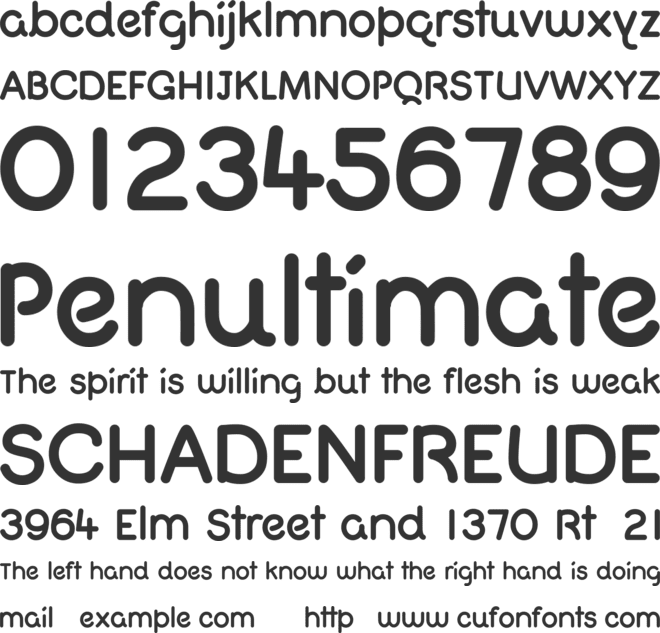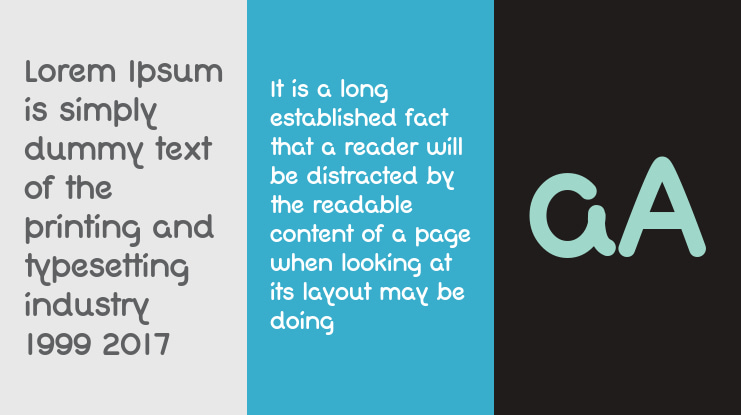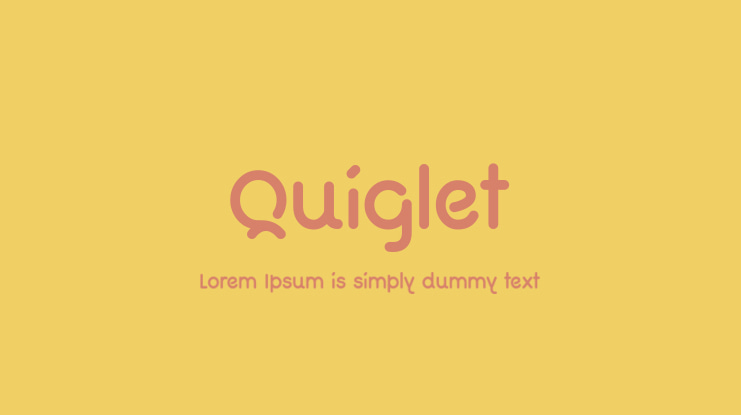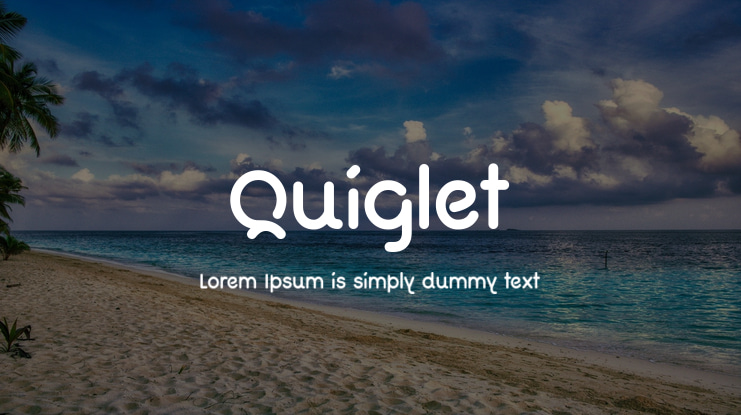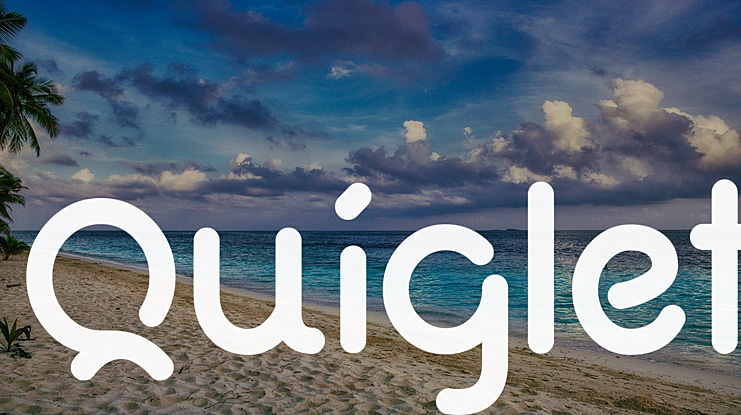
Quiglet Font
Clean and simple, bold and modern, fresh and optimistic – this font has a few idiosyncrasies that make it unique; a shortened letter i, open a and q, and a y hook that faces the other way. This original version is the bold version, a regular and thin to follow if comments are good! The lines in this font are very clean so it can be used at huge sizes; it also looks good with extensive styling, taking on many different personalities. If you like this font you can buy the extended version from here (http://graphicriver.net/item/modern-bold-rounded-font-quiglet/6500627&ref=joiaco).